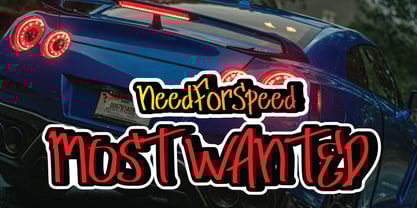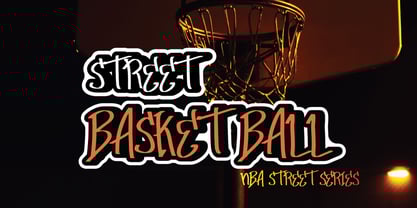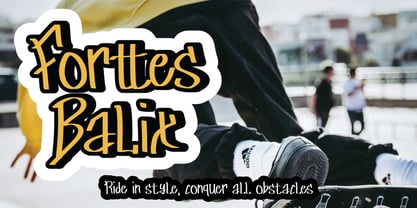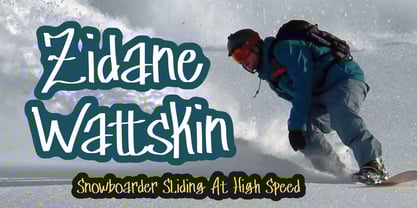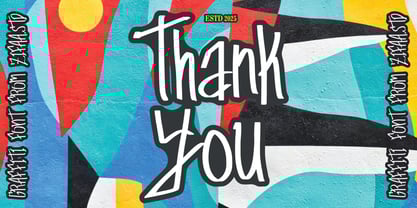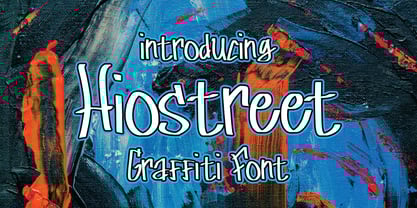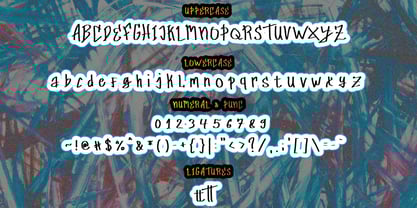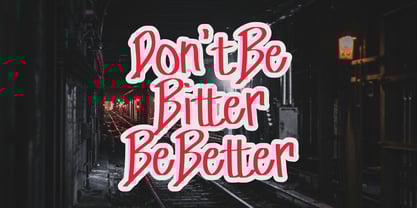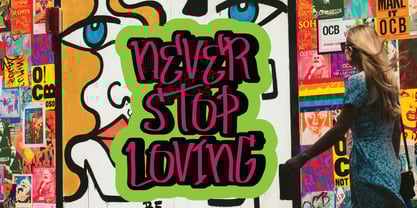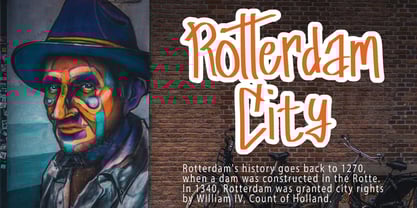
Hiostreet
The Hiostreet Font Family was designed by Ferdiansyah and published by Pointlab. Hiostreet contains 1 styles. More about this family
Hiostreet Graffiti Font is a display font inspired by typical street art calligraphy style or graffiti tag, suitable for your design related to it. Also suitable for movie, documenter, film, logo, poster, game, book cover, headlines, title and many more projects. Add this font to your creative ideas and notice how it will make them stand out!
Hiostreet Graffiti Font come with 130+ glyphs. The alternative characters were divided into several Open Type features such as Swash, Stylistic Sets, Stylistic Alternates, and Ligature. The Open Type features can be accessed by using Open Type savvy programs such as Adobe Illustrator, Adobe InDesign, Adobe Photoshop Corel Draw X version, And Microsoft Word. And this Font has given PUA unicode (specially coded fonts). so that all the alternate characters can easily be accessed in full by a craftsman or designer.